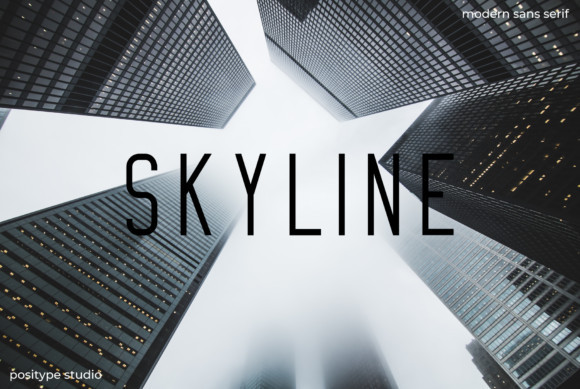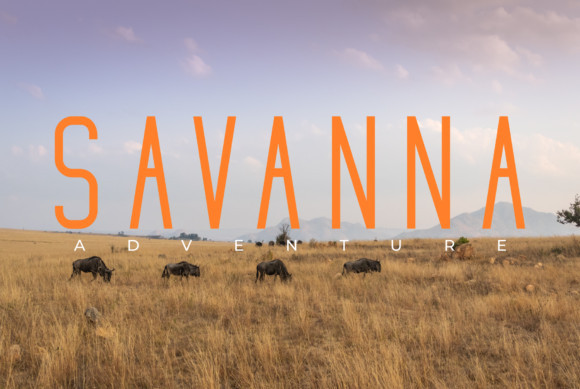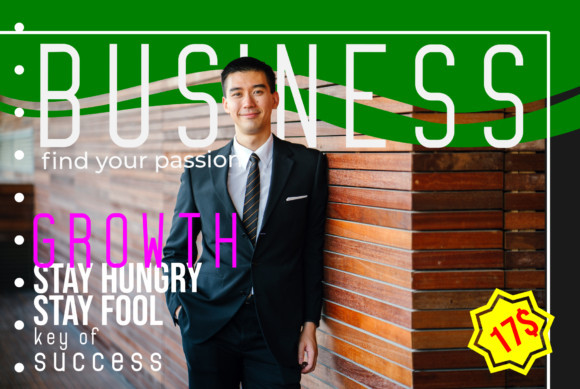
Skyline Font
Skyline is a simple and striking Sans Serif font that is available in both uppercase and lowercase letters with a wide range of other characters available making this an incredibly versatile font.